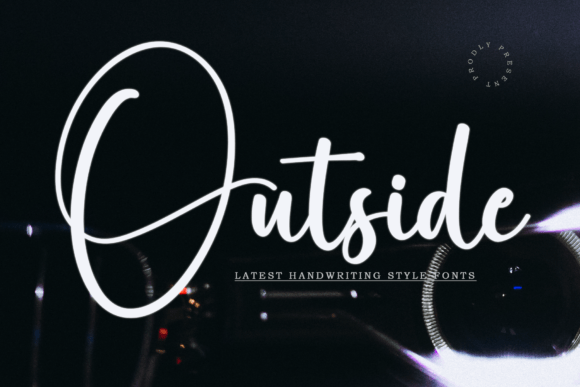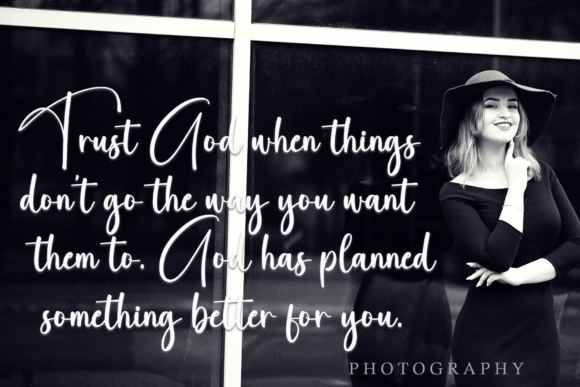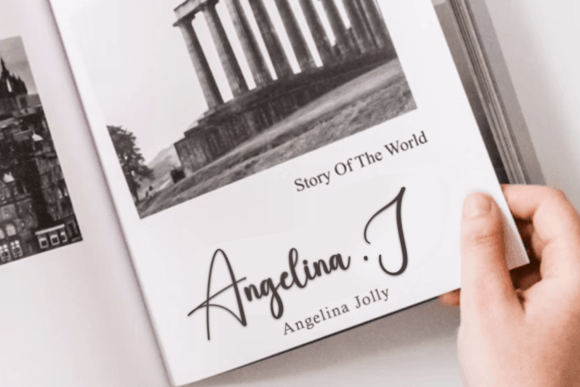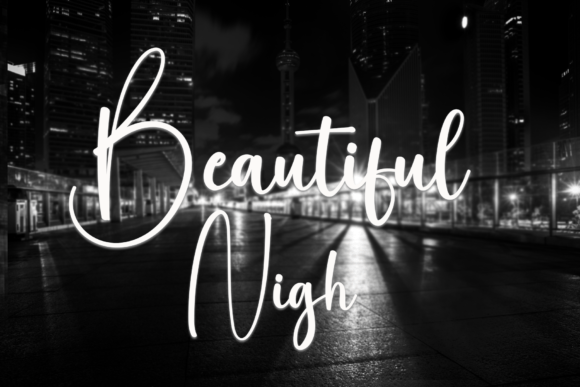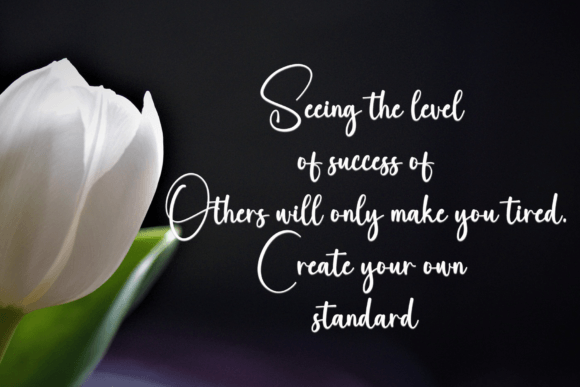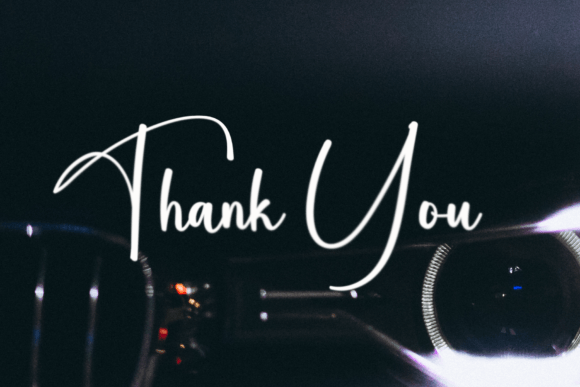
Outside Font
About Outside Font
Outside is a one-of-a-kind, round-lettered handwritten font that has been meticulously crafted to achieve specific and desired outcomes. With its unique design, this font offers versatility, making it suitable for a wide range of applications such as writing titles, crafting invitations, composing letters, and various other types of products.
The round letterforms of Outside contribute to its distinctive and friendly appearance. This characteristic makes it an ideal choice when you want to add a touch of warmth and approachability to your designs. The careful craftsmanship of the font ensures that it delivers the desired results, whether you’re working on digital or print projects.
Outside is not just a font; it’s a creative tool that allows you to infuse a personalized and unique feel into your projects. Whether you’re creating eye-catching titles, elegant invitations, or heartfelt letters, Outside brings a special touch to your text, making it stand out with its rounded and carefully designed letterforms.
In summary, Outside is a font that goes beyond the ordinary, offering a distinctive and carefully crafted style for your creative endeavors. Its versatility makes it a valuable asset for a variety of design applications, helping you achieve the desired results in titles, invitations, letters, and more.